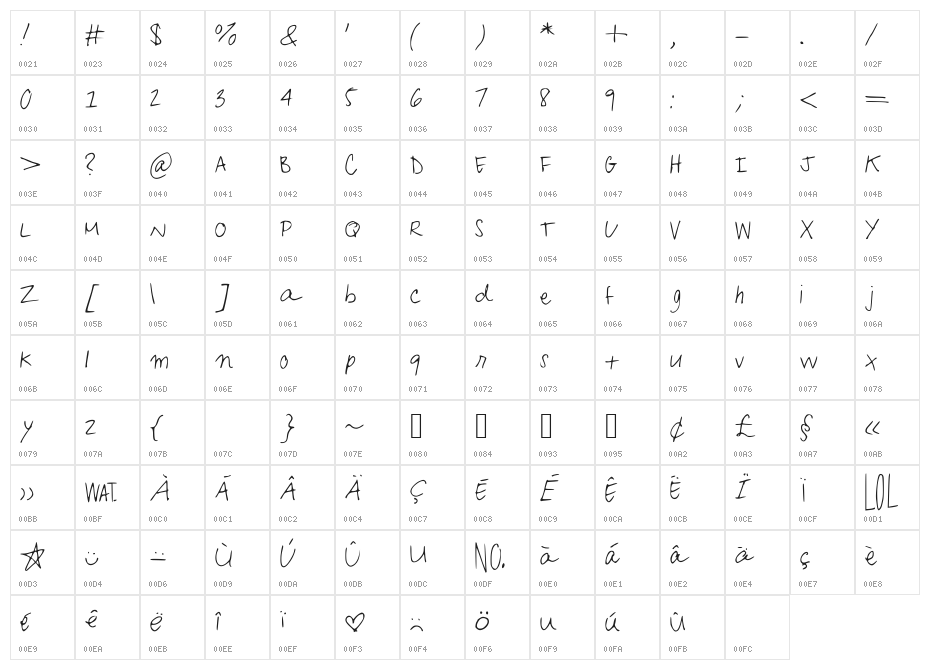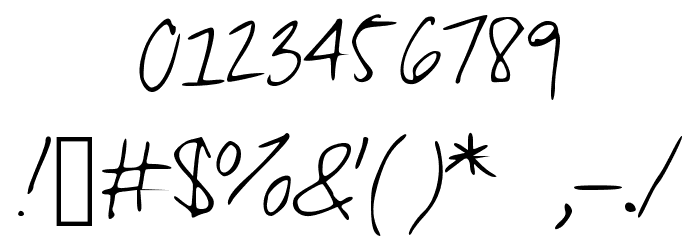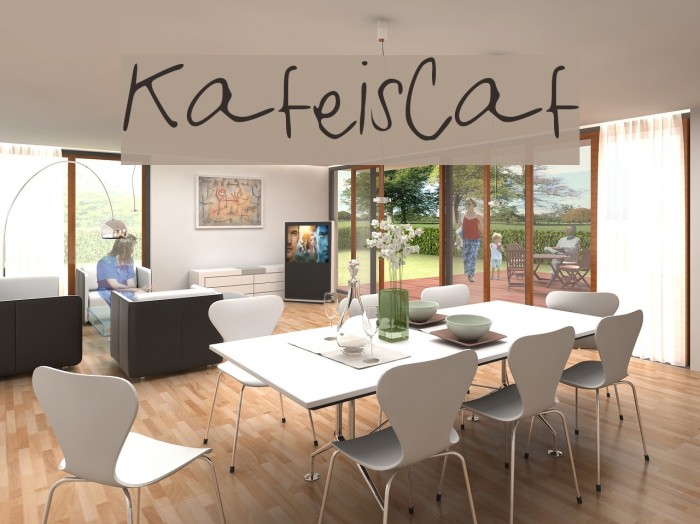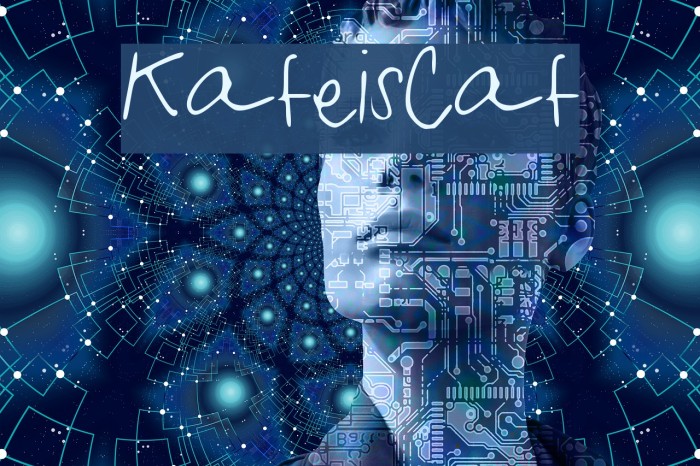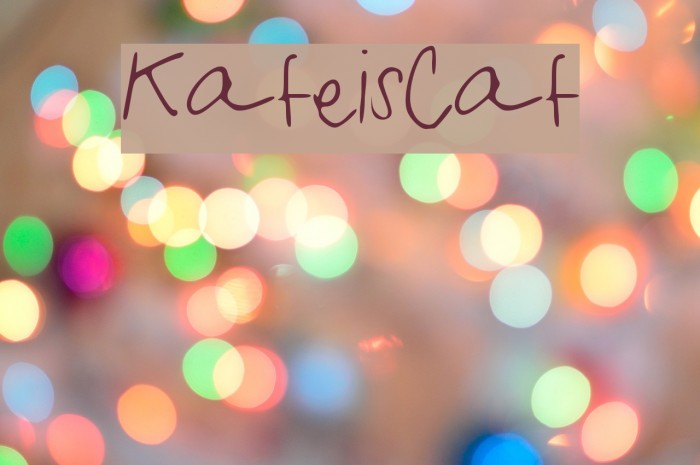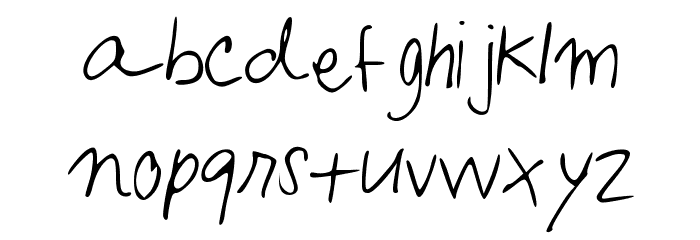
KafeisCaf Font
KafeisCaf Description
This font features a casual, handwritten style with a playful and informal appearance. The letters are slightly slanted, giving it a dynamic and lively feel. The strokes vary in thickness, adding a touch of personality and uniqueness to each character. The uppercase and lowercase letters maintain a consistent style, with rounded edges and a smooth flow. Numbers and special characters are designed to match the overall aesthetic, making the font versatile for various uses. The spacing between characters is relatively normal, ensuring readability while retaining its whimsical charm.
| Overall Style | Casual |
| Use Case | Headlines, Informal text, Creative projects |
| Proposed Projects | Ideal for personal projects, greeting cards, invitations, and informal branding. |